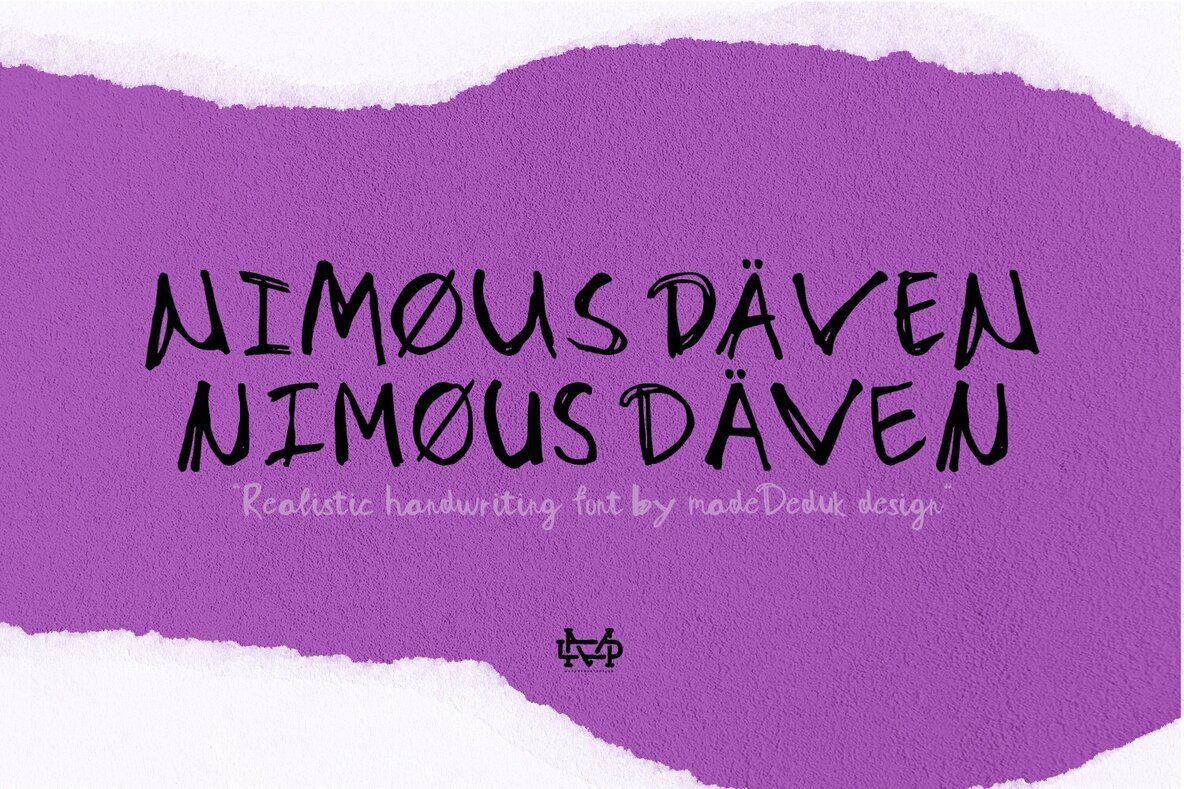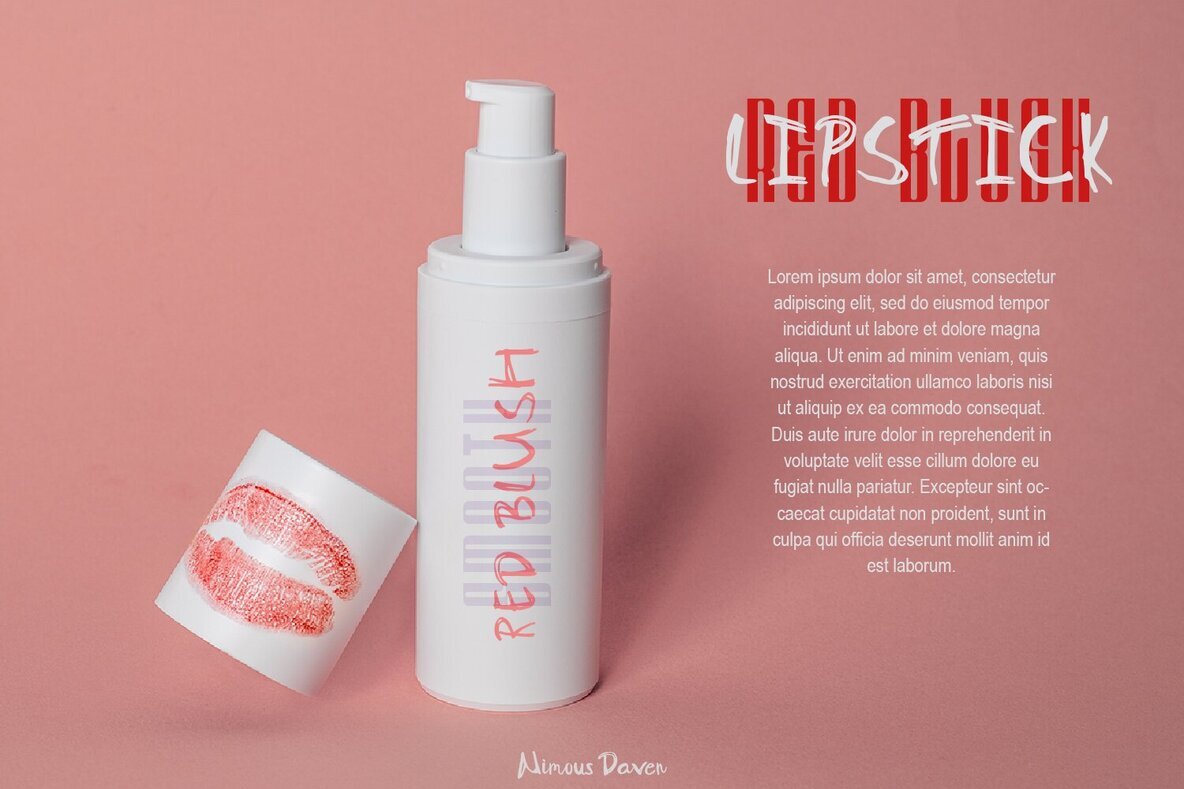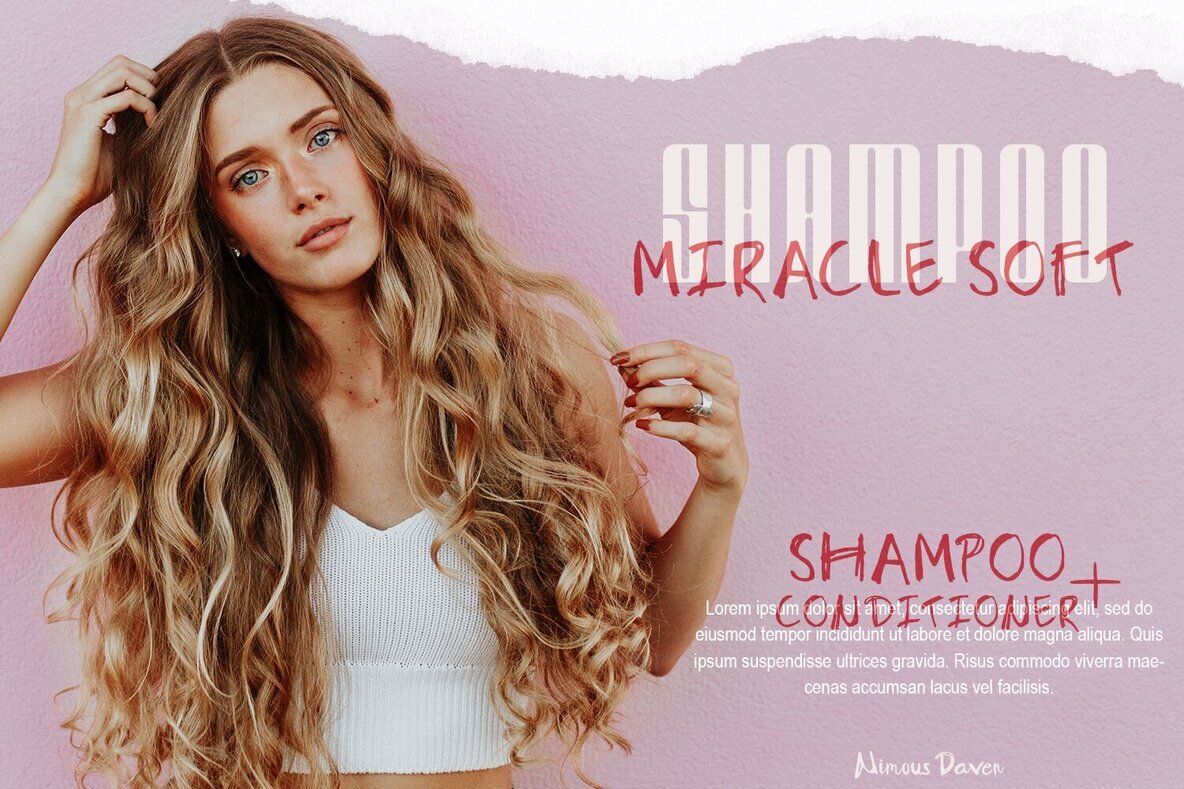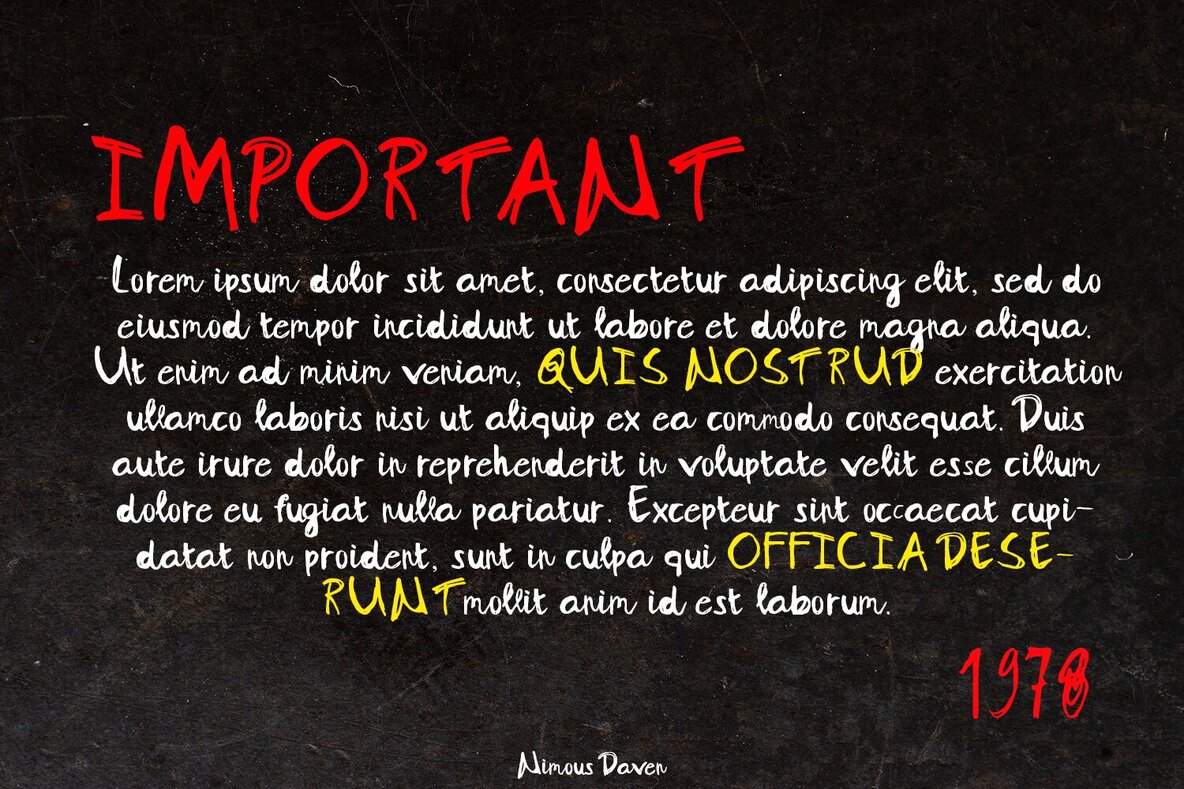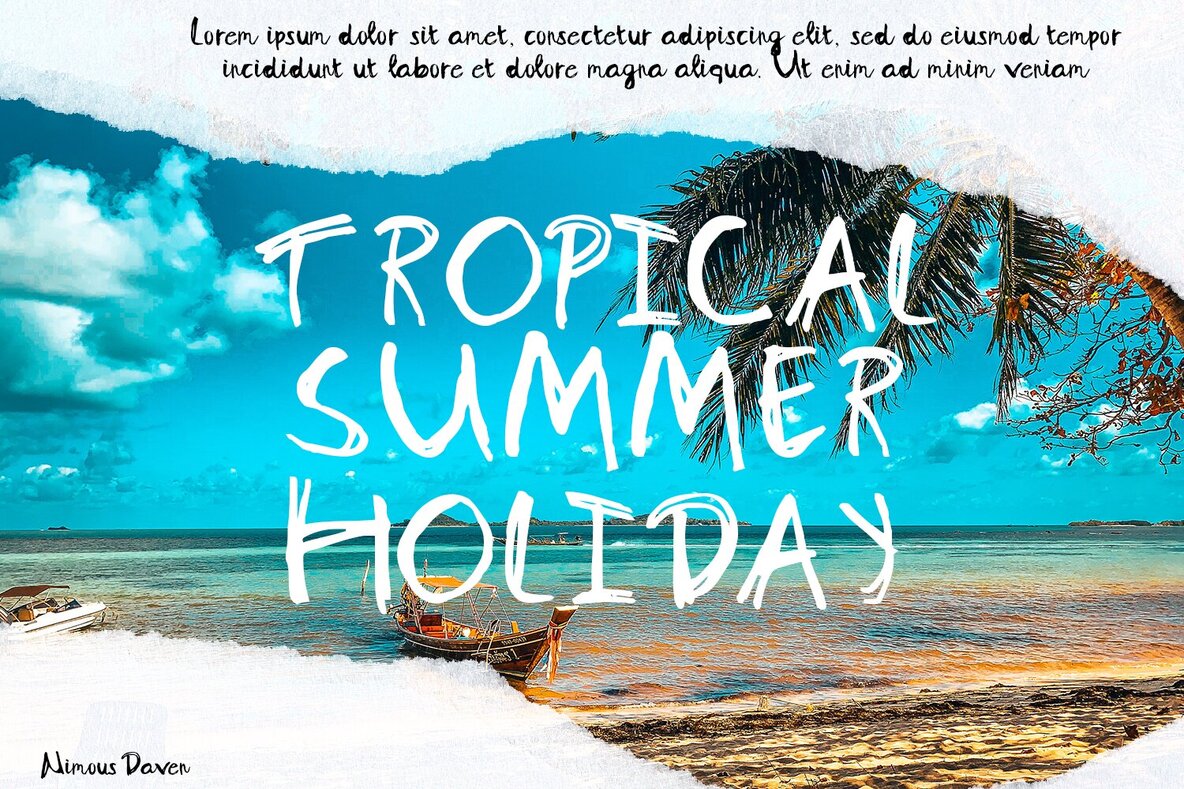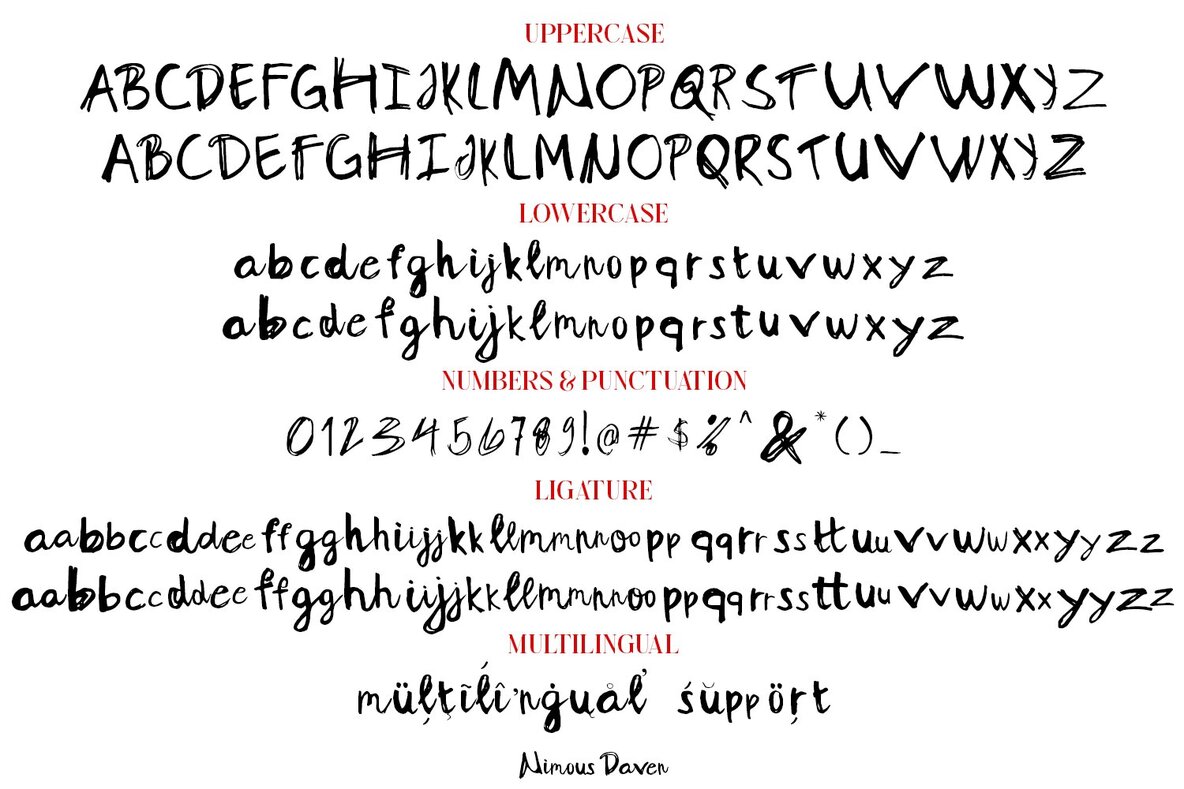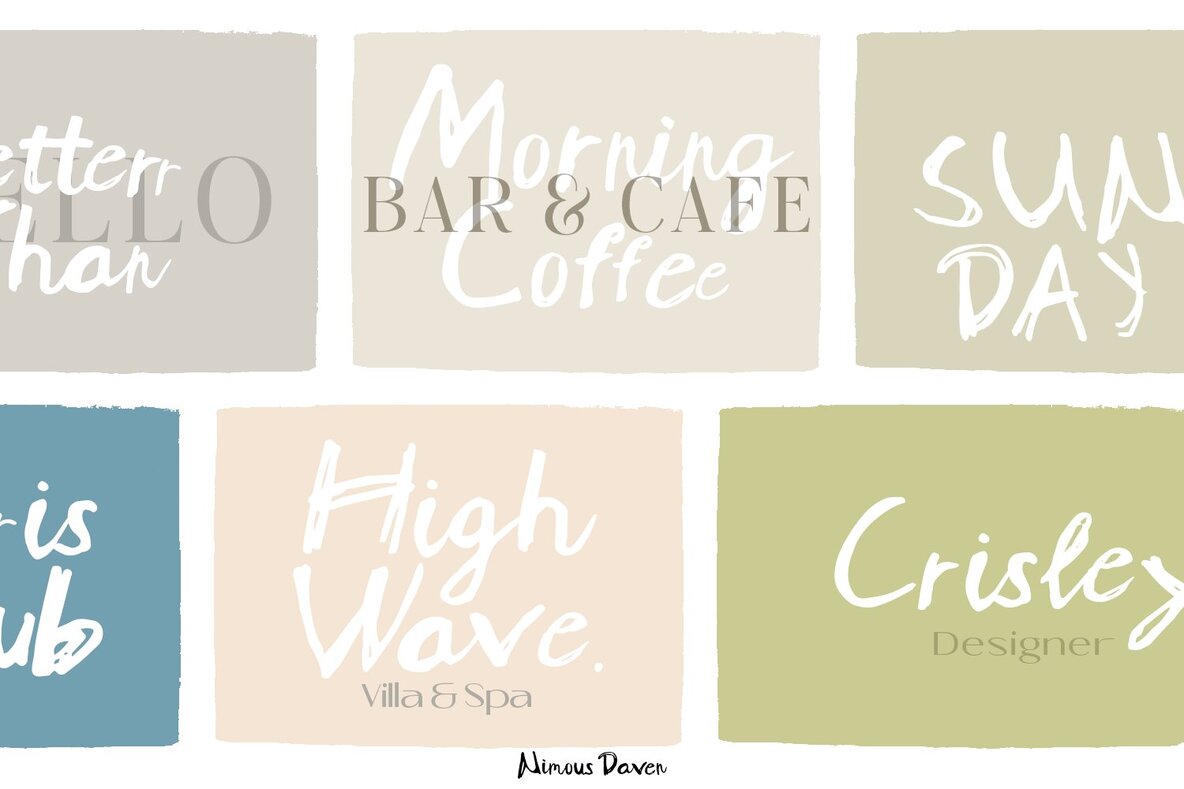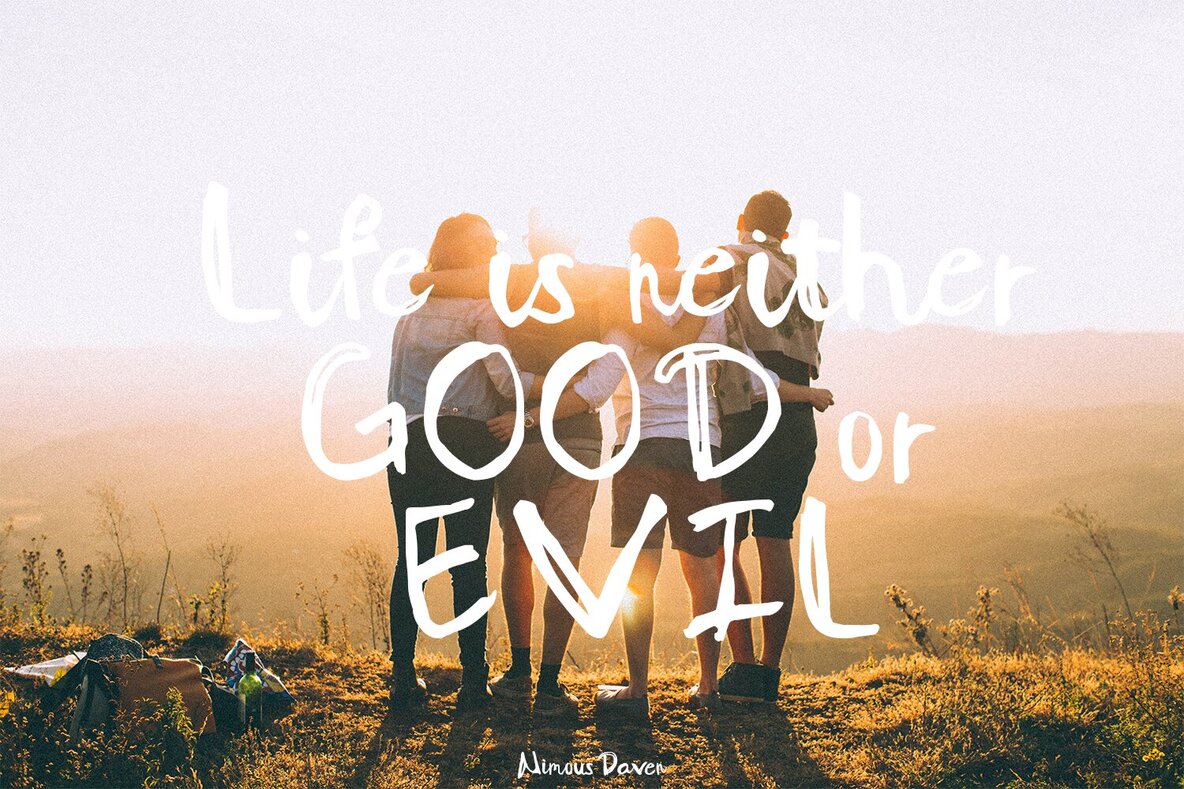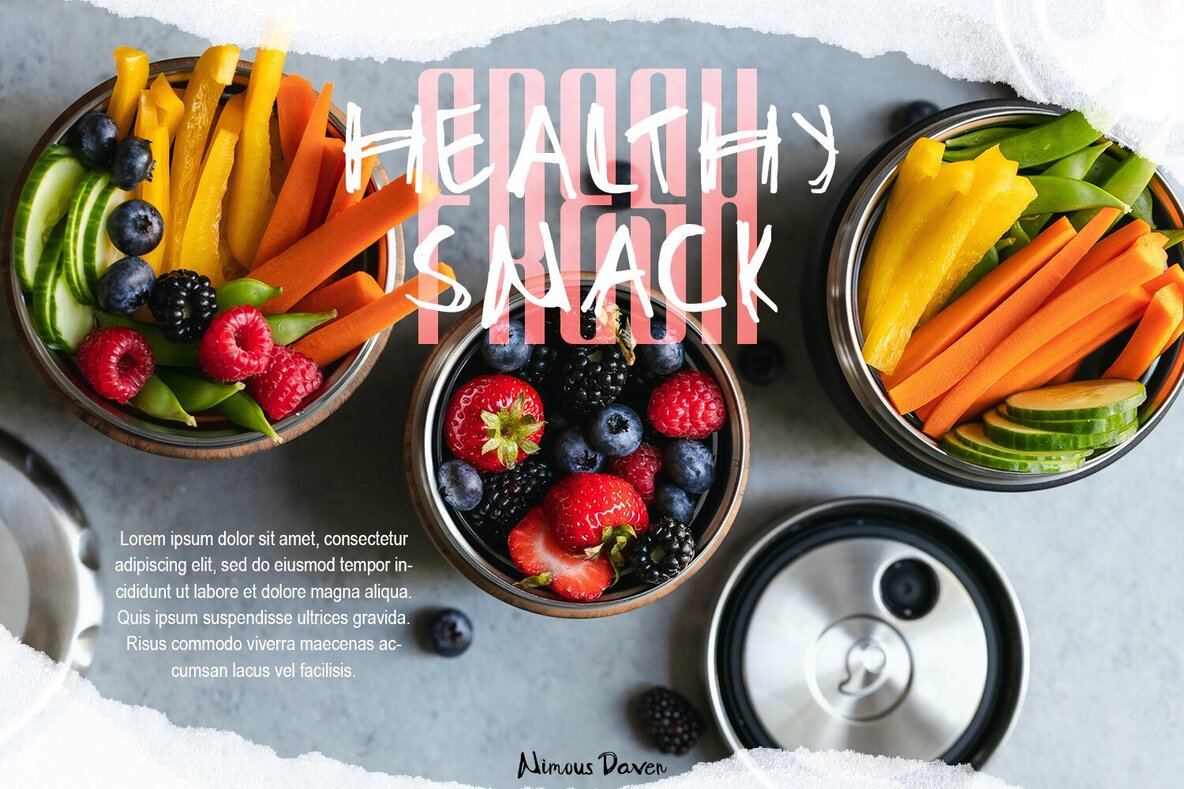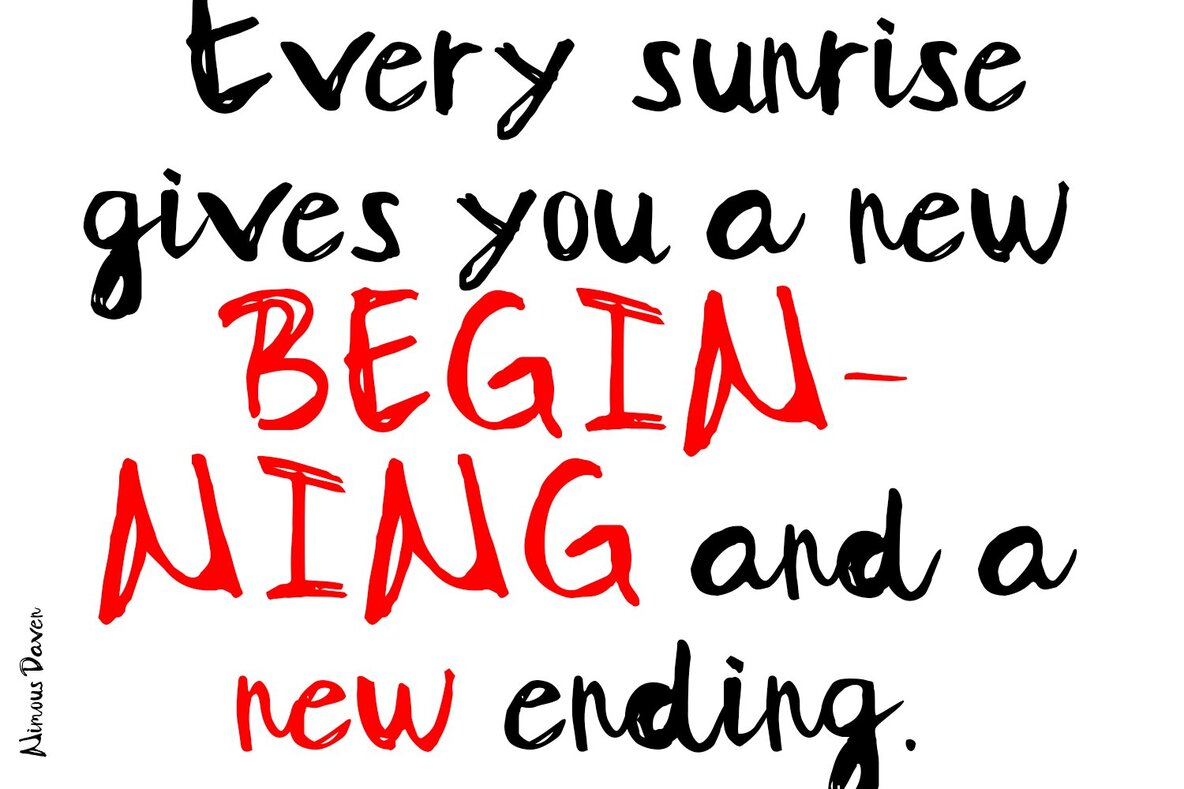
Nimous Daven Font
Nimous Daven is a distinctive hand-drawn font featuring over 50 ligatures and two alternatives. It is perfect for various design needs such as branding, posters, logos, invitations, writing, and headings. Thank you for visiting our shop, and feel free to contact us anytime. Follow our shop for future updates!Nimous Daven: Hand-Drawn Font with Unique Ligatures